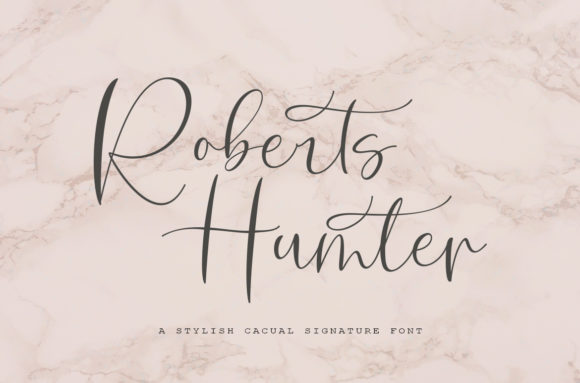
Roberts Hunter: A Modern Calligraphy Font for Editorial Warmth
It was a quiet Tuesday morning—coffee still warm, the first draft of a seasonal lifestyle blog redesign open in Figma—when I paused over the header font. The current sans serif felt crisp but distant; the content, full of slow rituals and handmade moments, needed something with breath, texture, and gentle intention. That’s when I opened Roberts Hunter. Not as a decorative flourish, but as a quiet editorial decision—one that would shape how readers first met the voice of the page.
A Handwritten Rhythm, Thoughtfully Engineered
Roberts Hunter is a modern calligraphy font from Script Amp, designed not to mimic handwriting haphazardly, but to echo its natural cadence: subtle entry and exit strokes, soft contrast between thick and thin lines, and an organic flow that never feels forced or overly ornate. It’s a script font with restraint—no exaggerated flourishes, no dramatic swashes that distract. Instead, it offers warmth through consistency: each letter connects with quiet confidence, and spacing feels considered, not crowded. As a display font, it carries presence without shouting. As a typeface, it holds mood like a well-chosen verb—soft, intentional, unhurried.
Where It Lives Well in Real Layouts
In practice, Roberts Hunter settles beautifully into roles where tone matters more than density. I used it for chapter openers in a digital magazine feature on mindful gardening—the title “Rooted in Stillness” set in Roberts Hunter, paired with a clean, airy serif for body text. The contrast worked because Roberts Hunter didn’t compete; it invited. It also anchored a printable coaching workbook: section headers like “Pause & Reflect” and “Your Next Small Step” gained emotional weight without sacrificing clarity. Even in a recipe ebook, it lent sincerity to dish titles (“Honey-Roasted Figs with Thyme”) while keeping the layout grounded—never cutesy, never cold.
For newsletter graphics and social media quotes, Roberts Hunter performs with surprising versatility. Its letterforms hold up well at medium sizes on screen (18–24px), especially against light or muted backgrounds. On mobile, it remains legible when used for short, high-impact phrases—not full paragraphs, but pull quotes, cover lines, or course module names. In PDF exports, it embeds cleanly and renders consistently across devices, provided you’ve licensed it for digital distribution.
What It Does—and Doesn’t—Do Well
Let’s be direct: Roberts Hunter is not a body font. Its expressive nature makes it unsuitable for long-form reading, dense captions, footnotes, or formal reports where neutrality and speed matter most. It’s also not ideal for small UI labels, navigation menus, or tight caption space beneath photos—there, a friendly sans serif or modest serif will serve readers better. And while it includes thoughtful alternates and standard ligatures, it doesn’t offer multiple weights or extensive language support beyond basic Latin characters. If your project requires Cyrillic, Greek, or extended diacritics, verify coverage before committing.
That said, its limitations are part of its strength. Roberts Hunter excels precisely because it knows its role: a premium font for moments of emphasis, identity, and emotional resonance. It’s a signature—not the whole sentence.
Pairing With Purpose
Its greatest power emerges in thoughtful pairing. I’ve found it sings alongside a warm, humanist serif like Lora or Merriweather for body copy—serif fonts that share its quiet elegance but prioritize readability. For digital-first layouts, a restrained sans like Inter or Source Sans Pro creates a balanced, contemporary contrast: Roberts Hunter brings voice; the sans brings structure. In printables or workbooks, pairing it with a light-weight monospace (for code snippets or timestamps) or a delicate slab serif (for subheads) adds subtle hierarchy without visual noise.
When building a consistent brand identity—say, for a wedding guide or a seasonal planner—Roberts Hunter becomes a quiet anchor. Used only for covers, section dividers, and key callouts, it creates continuity without repetition. Readers begin to associate its rhythm with care, intention, and craft. That’s not branding by logo alone—it’s branding by typographic rhythm.
Practical Notes Before You Use It
As with any commercial font, check licensing carefully. Roberts Hunter is licensed for web use, desktop design, and PDF embedding—but if you’re bundling it into editable Canva templates, selling printable kits on Etsy, or including it in a client’s branded toolkit, confirm whether your license covers redistribution. Script Amp provides OTF and WOFF files, and the font includes OpenType features like contextual alternates and discretionary ligatures—small details that elevate polish in editorial layouts.
Also worth noting: Roberts Hunter works best with generous line spacing and ample margin breathing room. In tighter grids or highly modular layouts, give it space to settle. Let it breathe—and your readers will too.
Back to that Tuesday morning: the blog header now reads “Gather & Grow,” set in Roberts Hunter, 36px, with soft tracking and a touch of letter-spacing. Beneath it, the body text flows in a relaxed serif. Nothing flashy. Nothing overdesigned. Just clarity, warmth, and a quiet sense of arrival—exactly what the content asked for.